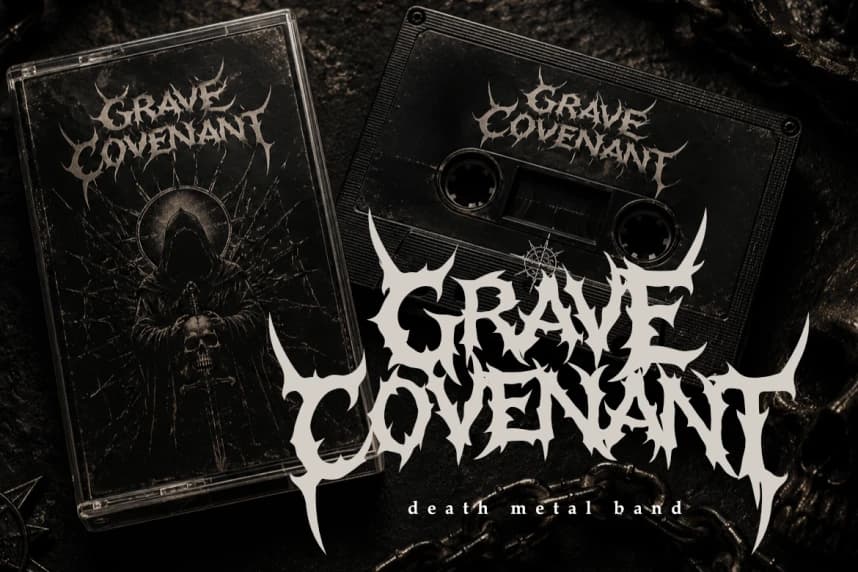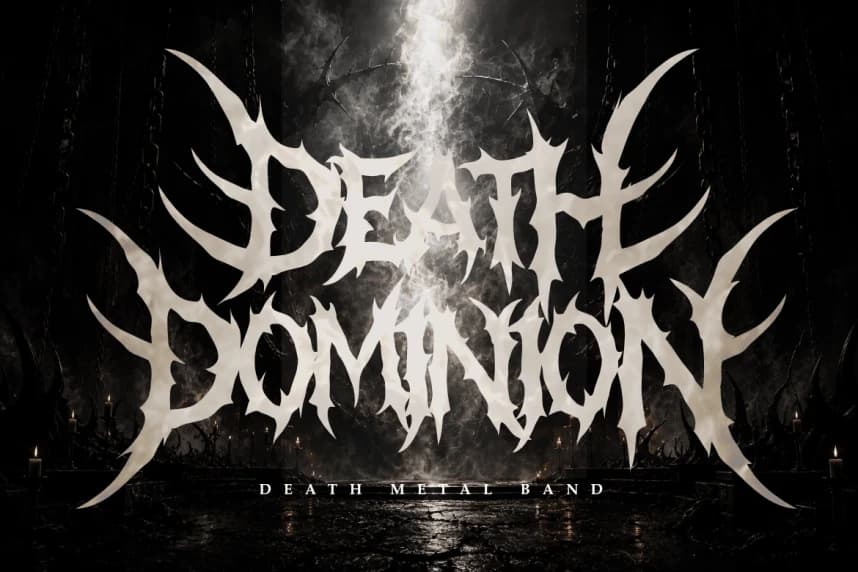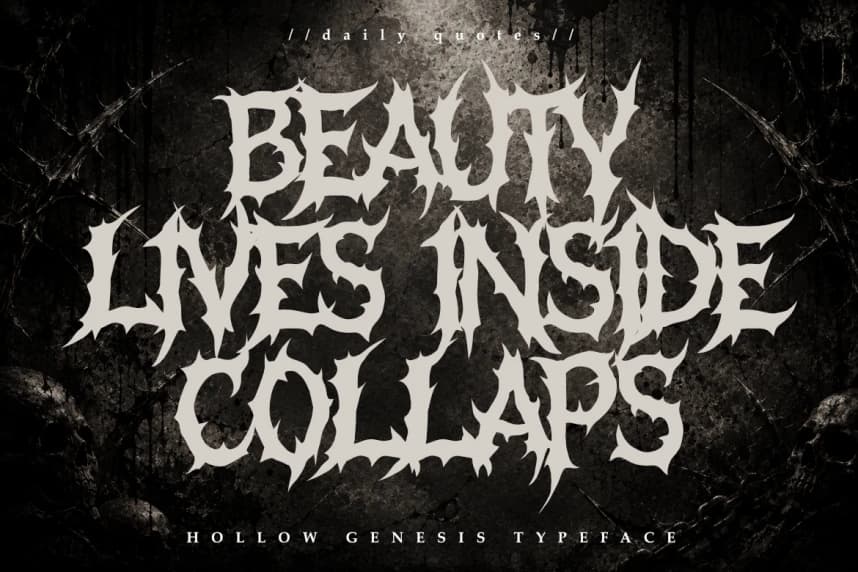
Hollow Genesis Font
Hollow Genesis Font is a brutal professional font designed for sophisticated branding and high-end extreme design projects. Its sharp and aggressive letterforms provide a contemporary yet timeless feel, striking a perfect balance between intricate thorny structures